When you hear the word vintage, you might associate it at first with old and outdated, or elegant and timeless.
In graphic design, vintage can actually be a good thing, especially when we talk about typography.
We’ve already discussed hand lettering fonts and modern fonts, so it was only natural to go into the intricacies of vintage fonts.
Harley Davidson and Dollar Shave Club are just a couple of world-renowned brands that use vintage style fonts in their logos, as well as in their campaigns.
It has to do with the idea of achieving timelessness, having a critical status, or of being respected for the brand’s lengthy history.
And using vintage letters in online or offline advertising conveys this exact idea.
To help you decide on the perfect font for successfully delivering your brand’s message, we put together a list of the 30 most representative vintage fonts.
Take a look below and get inspired.
1. Orwellian
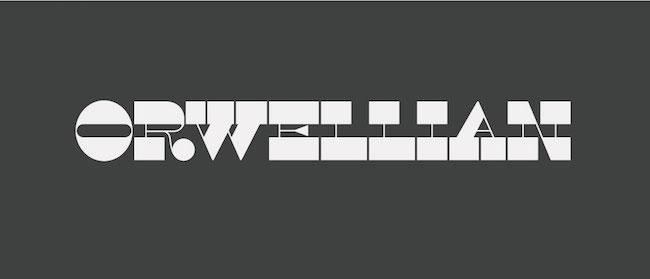
Clearly inspired by George Orwell’s masterpiece 1984, this vintage style font was first published in 2014 and can be used for posters, logos, campaigns, or as a vintage postcard font.
It’s mainly a reversed-stress typeface based on Henry Caslon’s Italian model.
Due to the strong visual impact, with the subtle watchful eye being a central piece of the font, it’s best to use this font whenever there’s a powerful and serious message to be conveyed.
If you wish for your campaign to be unique and memorable, the Orwellian font is the right way to go about it.
2. Gatsby
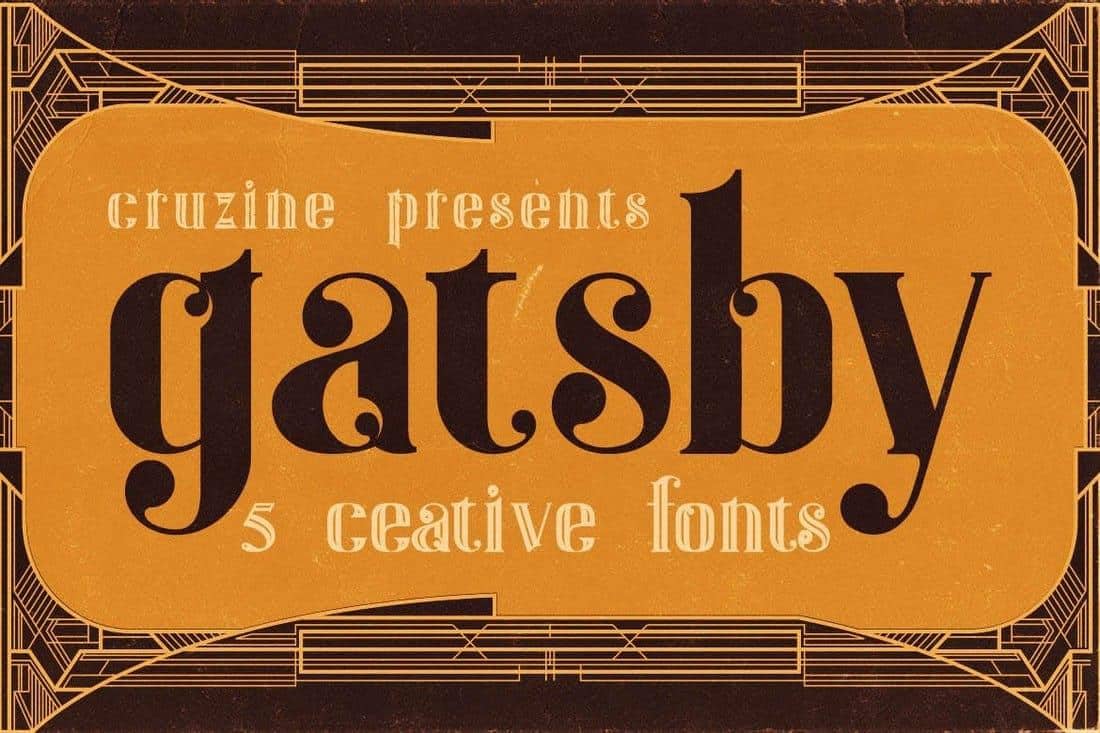
Another vintage lettering font with a literary basis is Gatsby, based of course, on Scott’s Fitzgerald’s The Great Gatsby.
It replicates the title logo from the movie, with its particularly elegant letters and earthy colors.
The font comes in five different styles: outline, regular, grunge, inline, and inline grunge, and it’s excellent for all types of vintage or retro-inspired projects.
3. Almeda
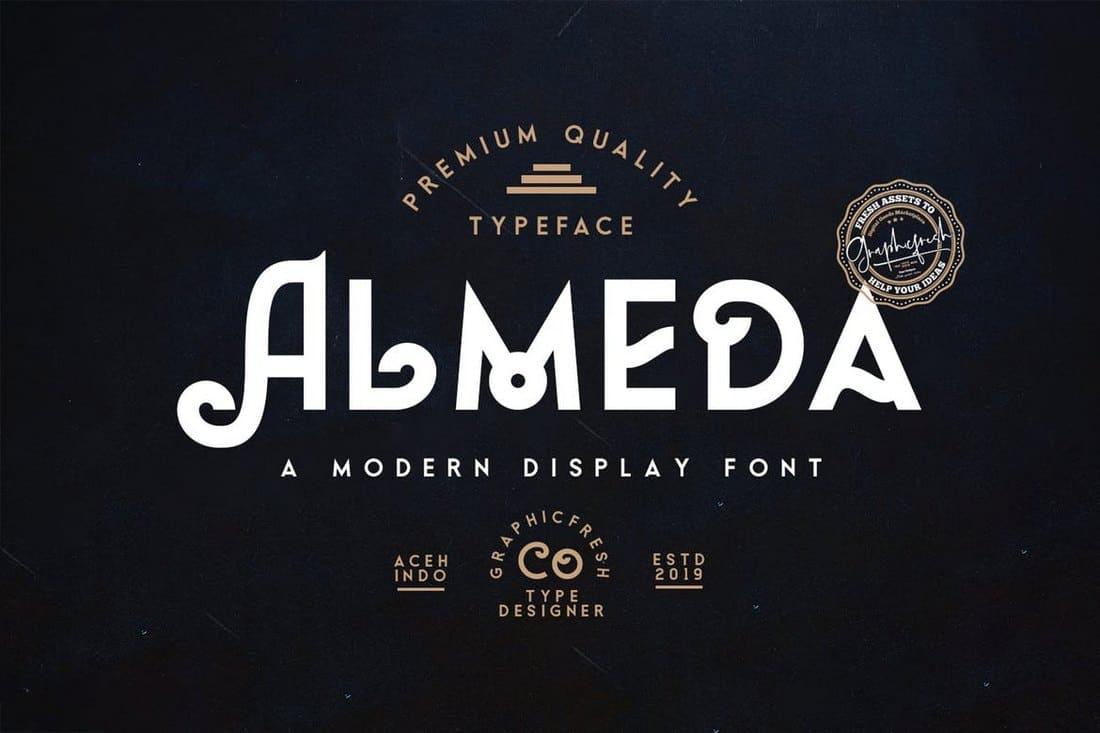
If your plan is to use something vintage, but with a modern touch, then look no further.
Almeda is a font that features multilingual support, uppercase, and lowercase letters, as well as punctuation and vintage number fonts.
4. Voyager
Among all the free vintage fonts, Voyager encapsulates the perfect combination of that futuristic, but at the same time, vintage feel.
It’s worth pointing out that the font is all caps and only free to use for personal projects. It does, however, come in three different styles, so you have a few different options to choose from.
5. Lazer 84
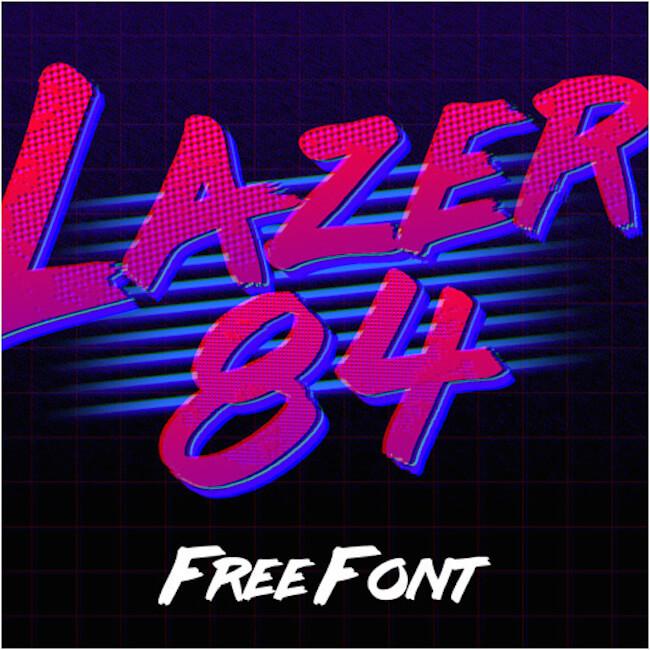
Reminiscent of the ‘80s, Lazer 84 is a retro-style brush font that includes accents, symbols, as well as vintage numbers.
Go back in time with this vibrant, wacky font, and use it on posters, campaigns, and even cards.
6. Captain America
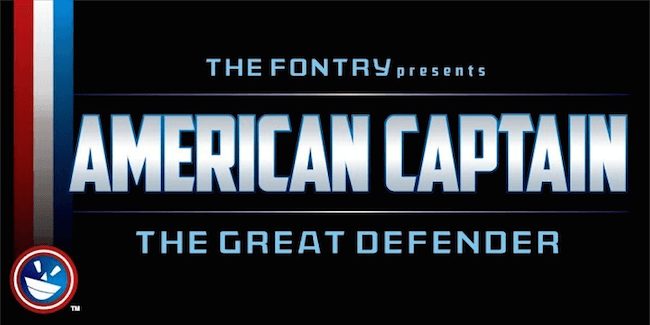
Any great superhero would have a font inspired by him, and Captain America is one of them.
The sleek and clear design of the typeface makes for a vintage look that seems bold and manages to capture your attention in no time.
It’s available in uppercase letters, vintage numbers, accents, and punctuation marks.
7. Hillenberg
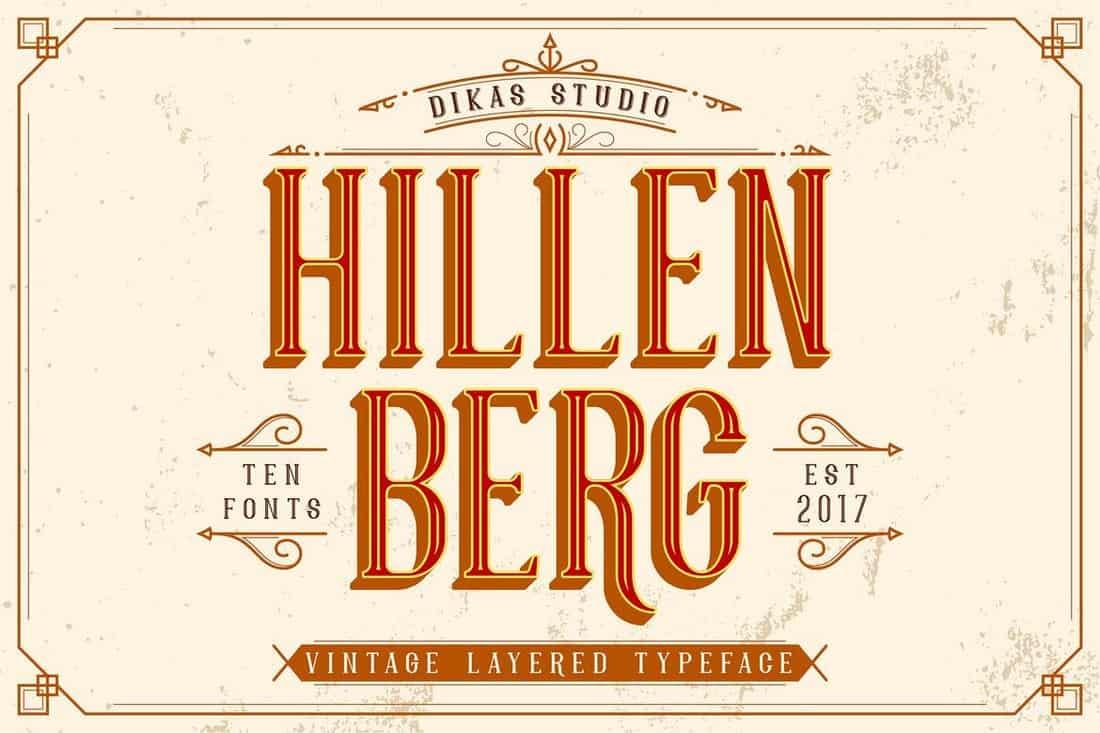
A classic among the classics, Hillenberg comes in ten different typefaces featuring multilingual support as well as uppercase and lowercase lettering.
With so many options, it should be easy to find what works best for personalizing your brand.
This vintage style font is engaging and looks excellent on invitations, business cards, or posters.
8. Fairwind
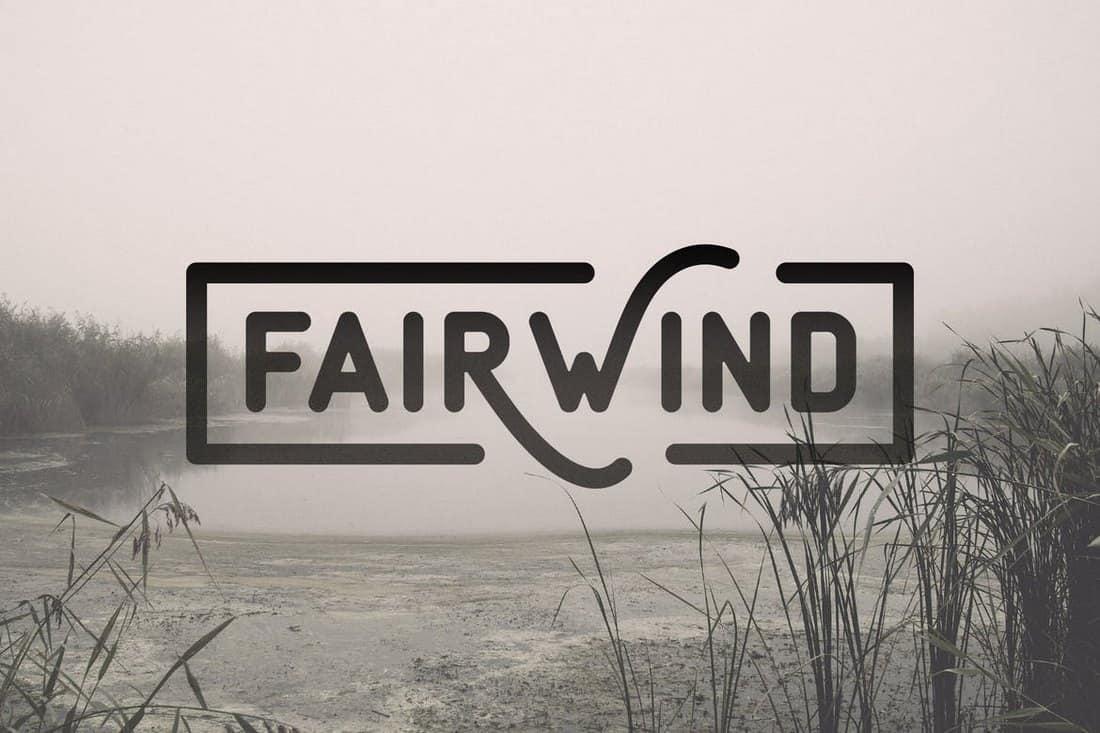
Fairwind, a mix of modern and vintage, gives off a mysterious vibe while at the same time having a pretty clear and simple look.
It comes in two versions, rough and regular, and it includes stylistic alternates for a few vintage letters (through Photoshop CC and Illustrator).
9. Graphique Pro Next
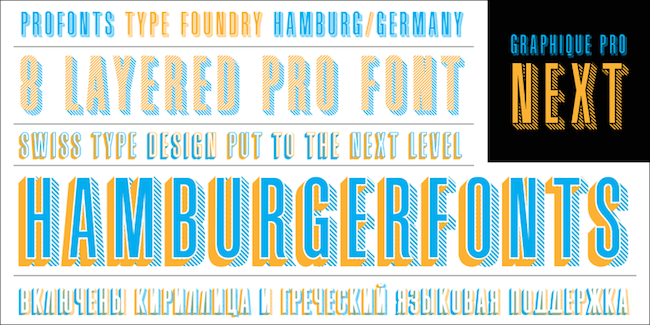
An economic font with narrow characters, Graphique Pro Next was designed by Hermann Eidenbenz in 1945, and it promotes a fresh and aesthetic look.
It consists of a total of eight styles and works perfectly in any campaign, logo, or display ad.
10. Savaro
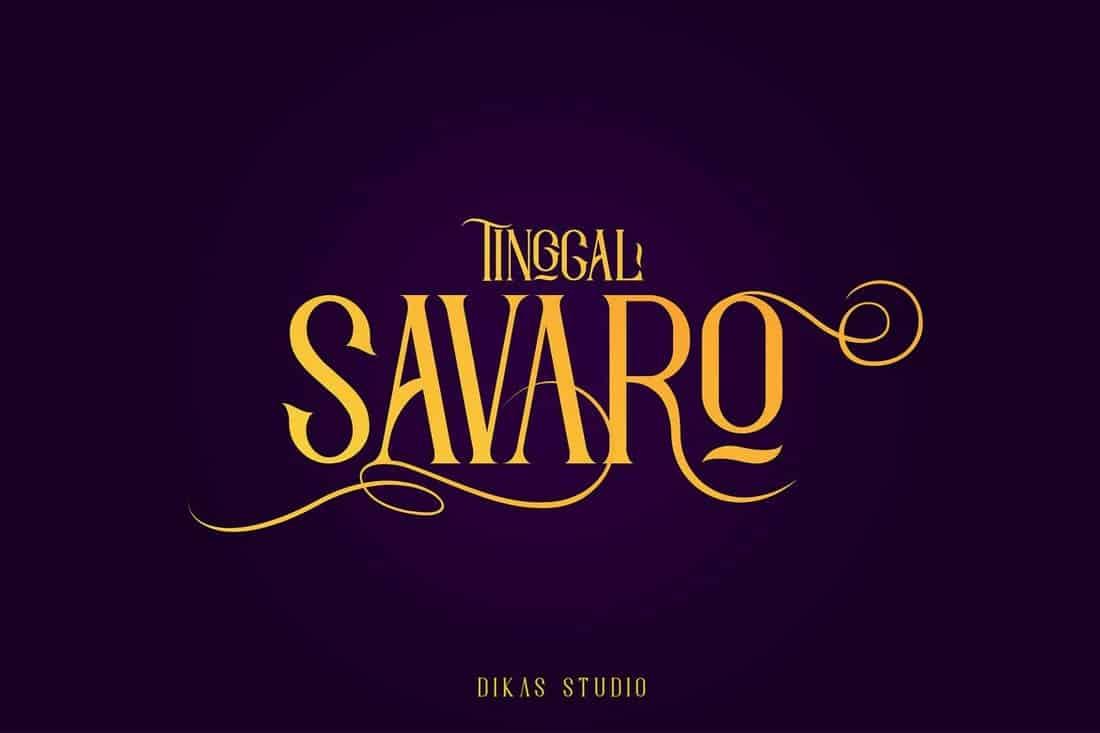
The elegant Savaro gives the impression of movement with its swashes and stylistic characters. It’s perfect for luxury brands that want their design to be distinct and stylish.
It works best on invitations, posters, quotes, t-shirts, or labels.
11. Bignord
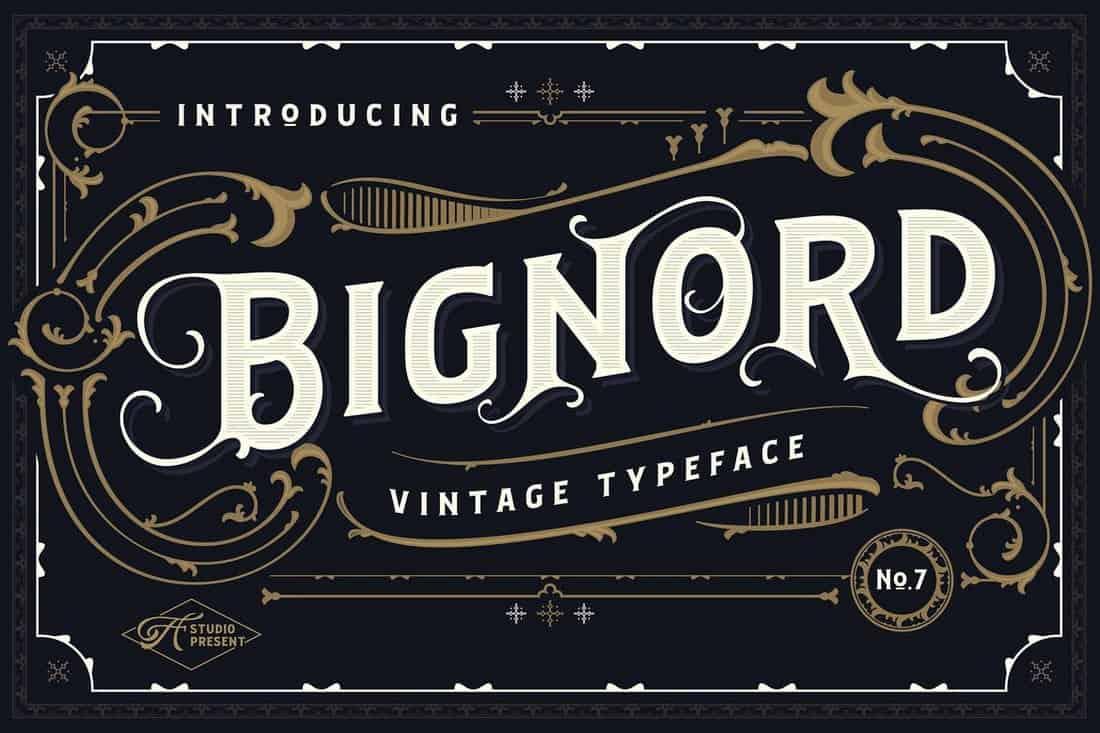
An attractive vintage font, Bignord is both stylish and bold. It’s mostly popular in print designs, but it features five different styles and can be adapted to be perfect for online advertising as well.
Conclusion
In the process of building a brand identity, choosing the font is as important as the other elements, like the logo or the color palette you go for.
In case you’re looking for the perfect vintage font, I hope that this article will help you find the right one for your creative project.